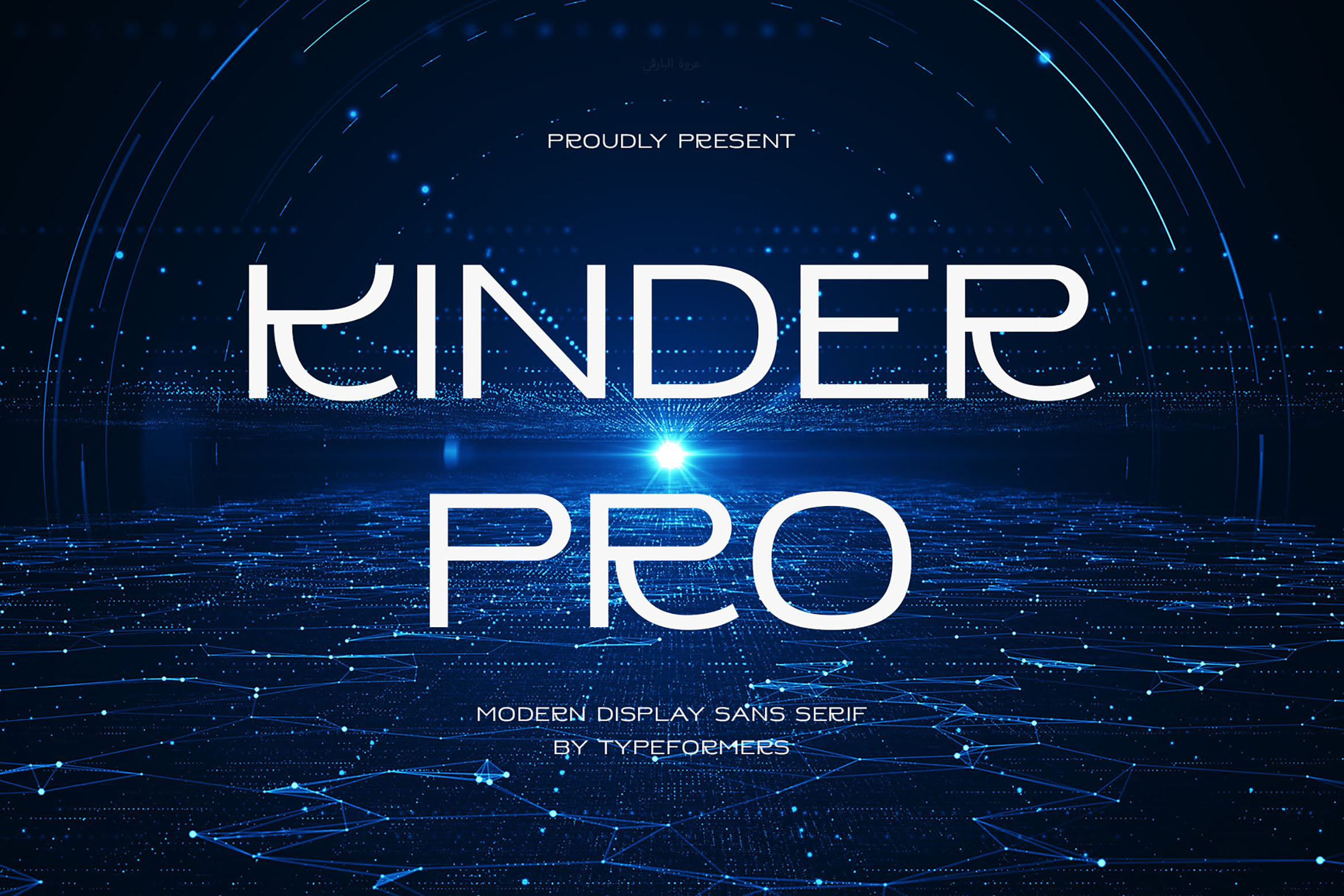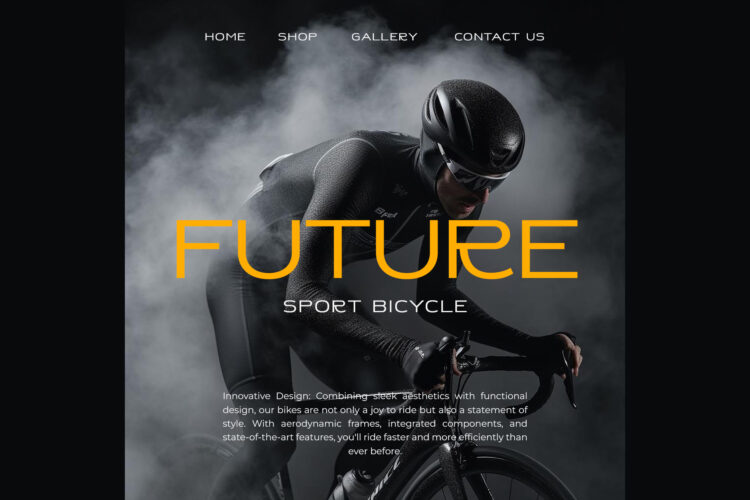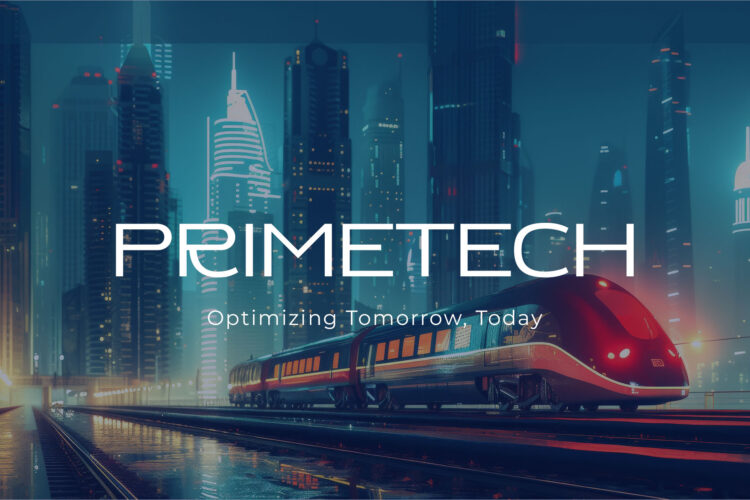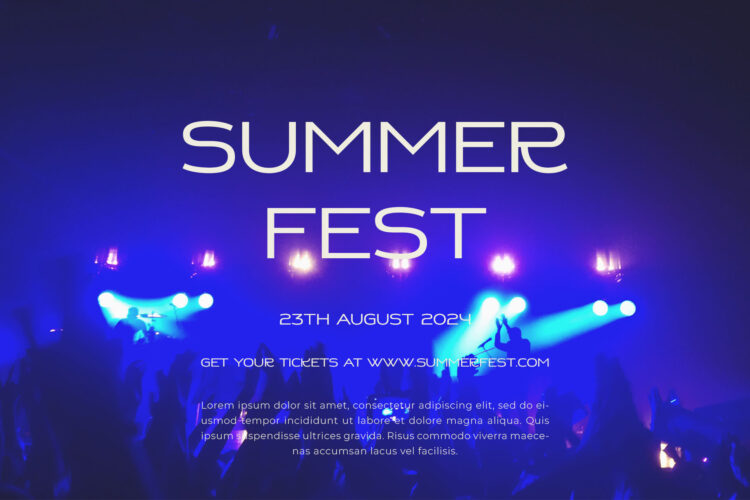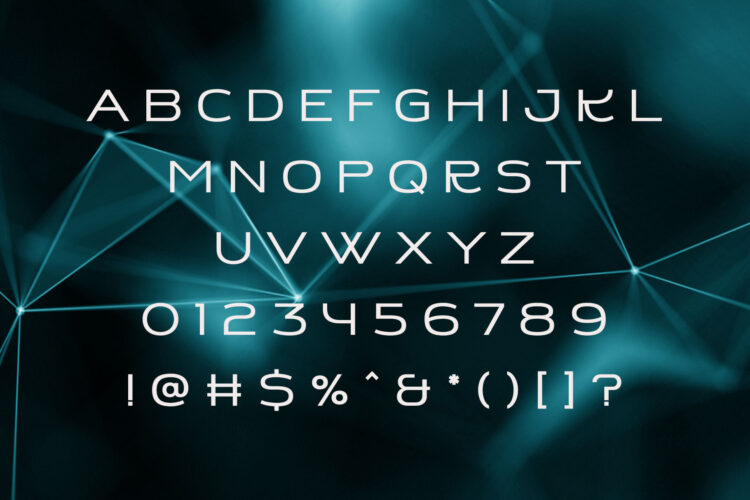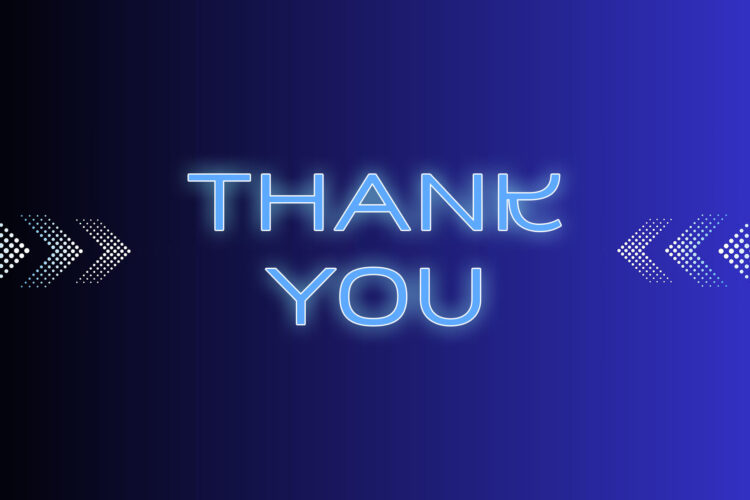
Introducing Kinder Pro – Futuristic Sans Serif.
Kinder Pro is a modern and simple font, best used as a display for headings, logos, branding, magazines, product packaging and invitations.